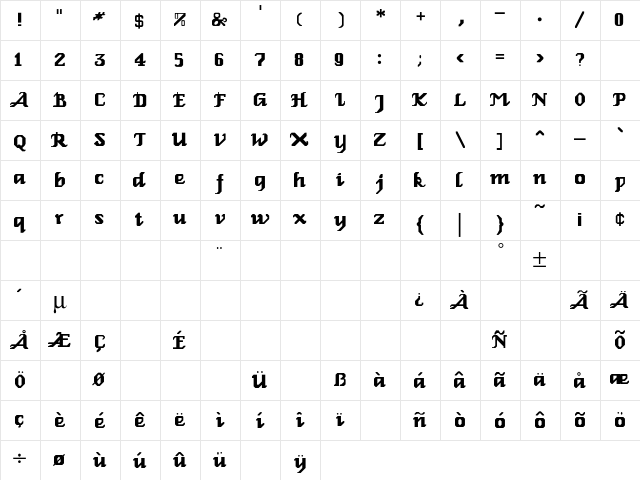
Lynnfeld Regular
Design Context for Lynnfeld
Lynnfeld is a composed and adaptable typeface that performs quietly and consistently across a wide range of design contexts.